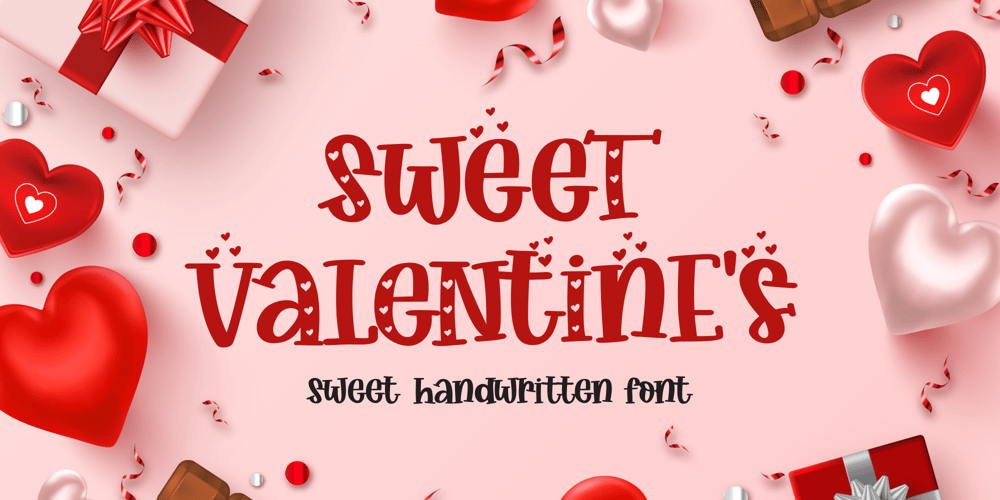
Sweet Valentines
Sweet Valentines font
Sweet Valentines Font Family was designed by SU KASIH and published by Mozatype. Sweet Valentines contains 1 styles and family package options. Sweet Valentine’s is a minimalist handwritten font.It is a quirky and cute display font. As its name implies, Sweet Valentine’s is a charming, romantic font – perfect for weddings, Valentine’s Day, and anniversary celebrations.This font is ideal for crafting, branding, and decorates any project. This font is perfect for wedding invitations or your blog. Also with their help, you can create a logo or beautiful frame for your home. Or use it for your business, book covers, stationery, marketing, magazines, and more. Fall in love with its incredibly versatile style and use it to create spectacular designs!Use this font for any crafting project that requires a personalised look!What’s Included :- Works on PC & Mac- Easy to use ( Installations )- Compatibility Windows, Apple, Linux, Cricut, Silhouette, and Other cutting machinesThank you for purchasing this font. Please appreciate, if you like this.ENJOY it 🙂